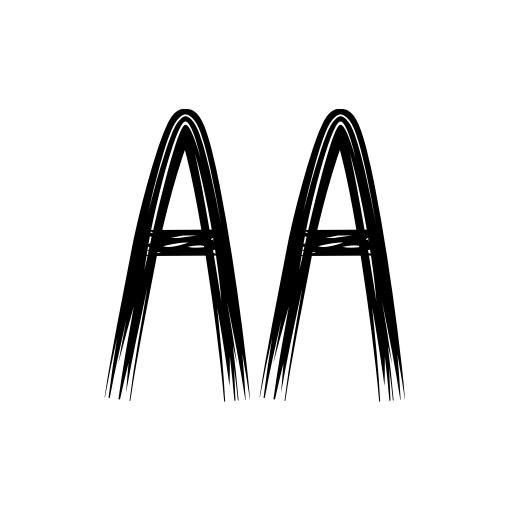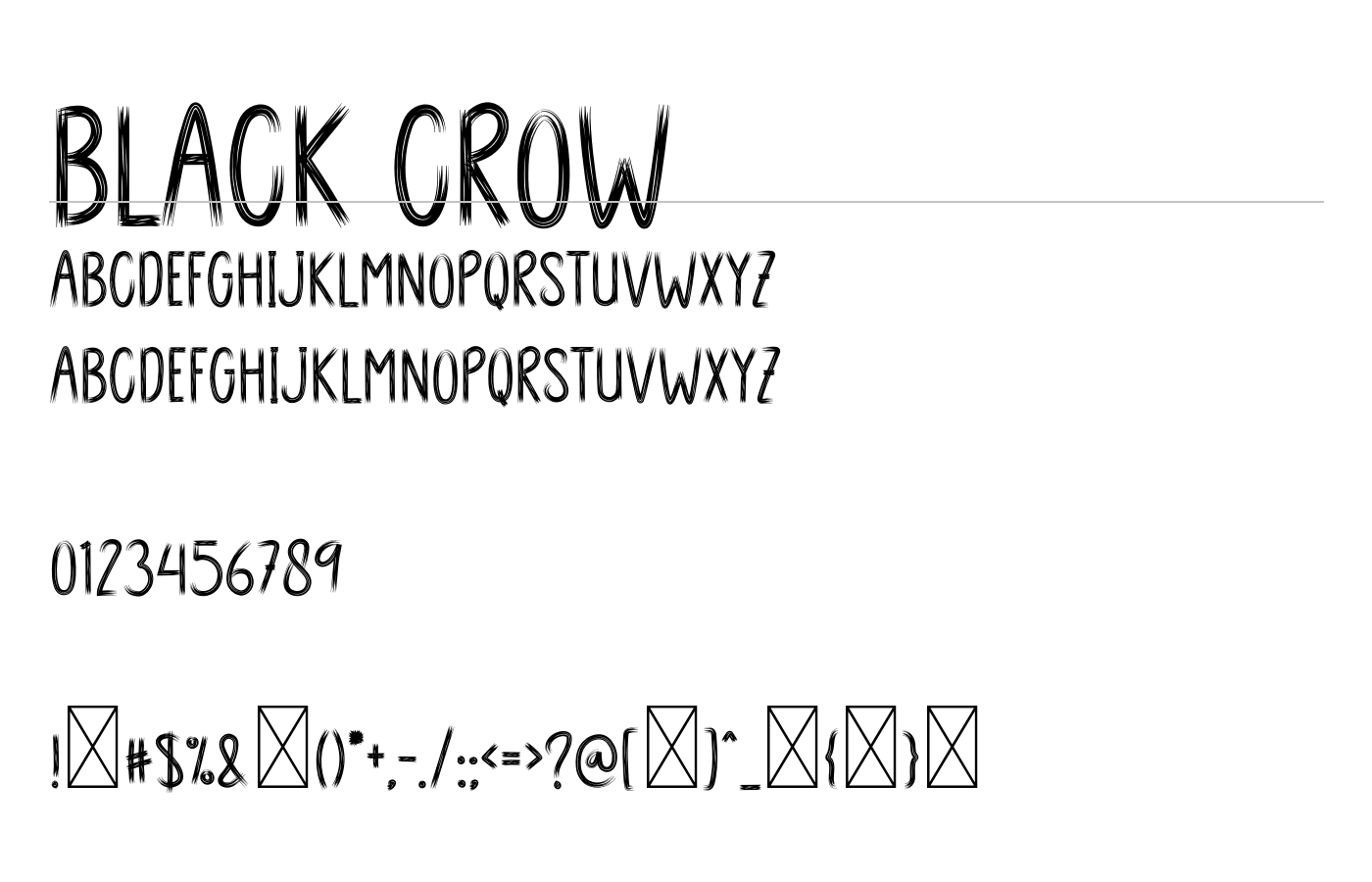
BLACK CROW is a distinctive, narrow sans serif font with a hand-drawn, textured look that resembles fine scratches or brush strokes. Its tall, slender letterforms combined with an uneven, sketch-like style create a dynamic and edgy personality, perfect for conveying creativity and uniqueness. This font works best in headlines, branding, or artistic projects where a bold yet handcrafted feel is desired.
BLACK CROW Font
About BLACK CROW Font